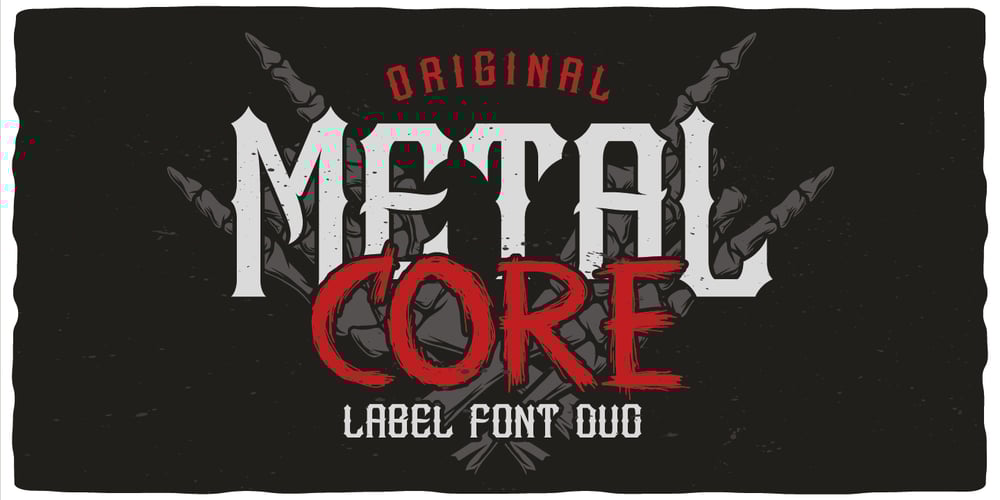
Metal Core Font Family was designed by Oleg Voznyy and published by Vozzy. Metal Core contains 3 styles and family package options. Metal Core is a set of strong and nervous fonts and perfect for lettering on vintage music (and not only for these) style labels, posters, t-shirts, logo etc. All available characters with sample designs you can see at the preview.